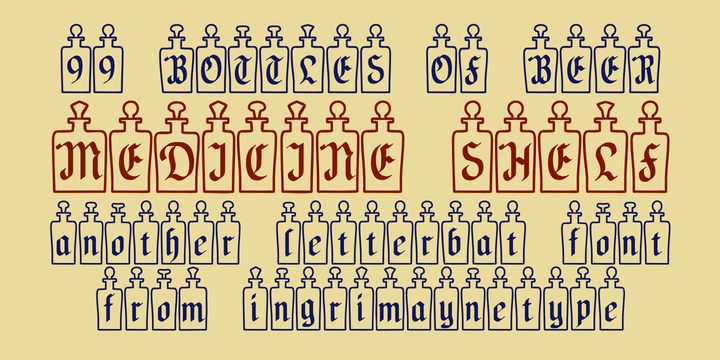
Medicine Shelf
Design Credits
Designed by: Robert Schenk
Designed when: 1995
Medicine Shelf
MedicineShelf has old-fashioned looking letters on old-fashioned looking bottles.